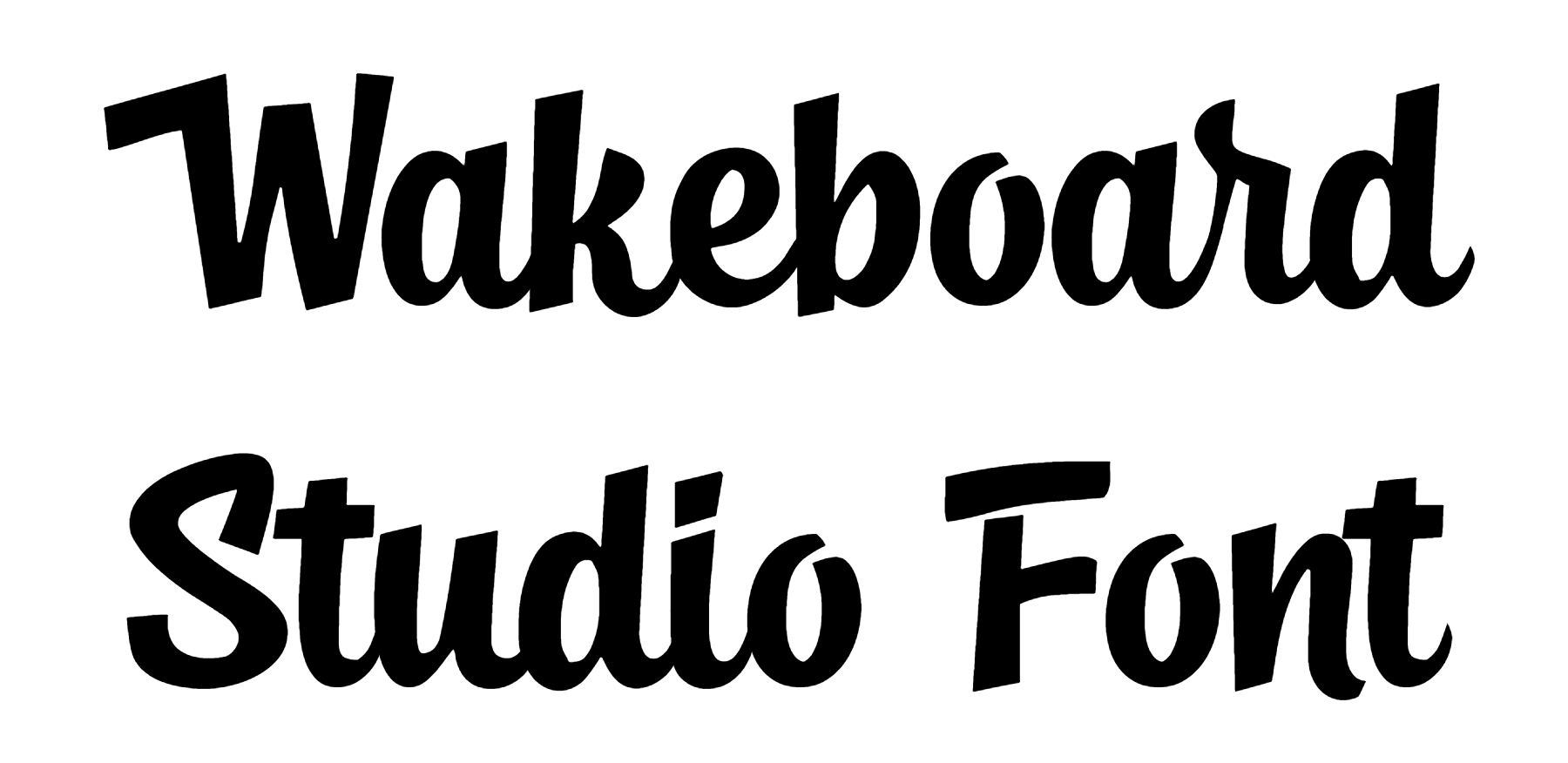
Wakeboard Studio
What You Can Type With Wakeboard Studio
You get every letter from A to Z in both cases and all the numbers from 0 to 9, which means Wakeboard Studio can handle full sentences, dates and prices. Everyday marks like &, !, ? and @ are there too. Thanks to its accented letters, it also works for Spanish, French, German, Portuguese and Italian, not just English.
Where Wakeboard Studio Works Best
Designers usually reach for fonts like Wakeboard Studio when they're making posters, logos and eye-catching headlines. Use it for one standout word or headline and let simpler fonts handle the rest.
Does Wakeboard Studio support accented letters?
Yes. Wakeboard Studio includes the accented letters needed for Spanish, French, German, Portuguese and Italian, so it works for more than just English.